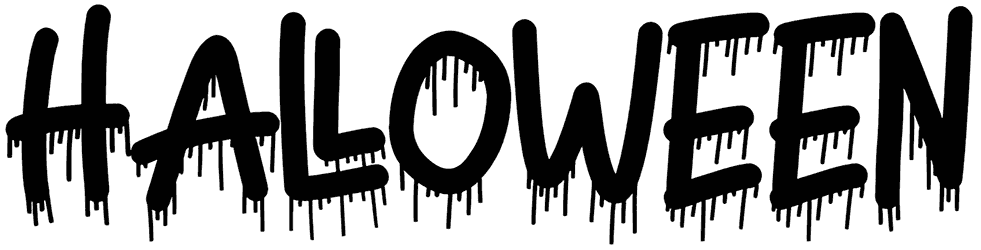
Deadly Poison II Font
Poison your words with a dripping font and make your design darker and more deadly. Deadly Poison II, with its bloody letters, can convey an eerie vibe and shock your viewers. Supporting full characters will give you a chance to use this Halloween font for various projects, from crazy invitations to web graphics.